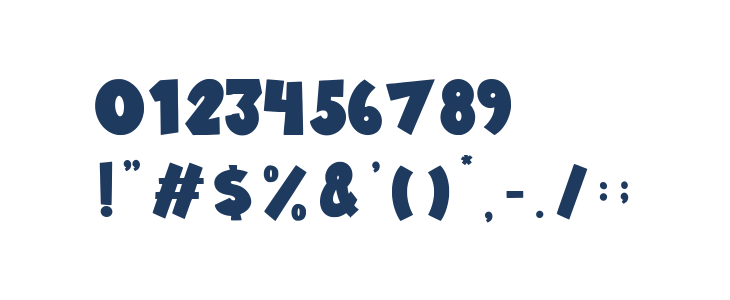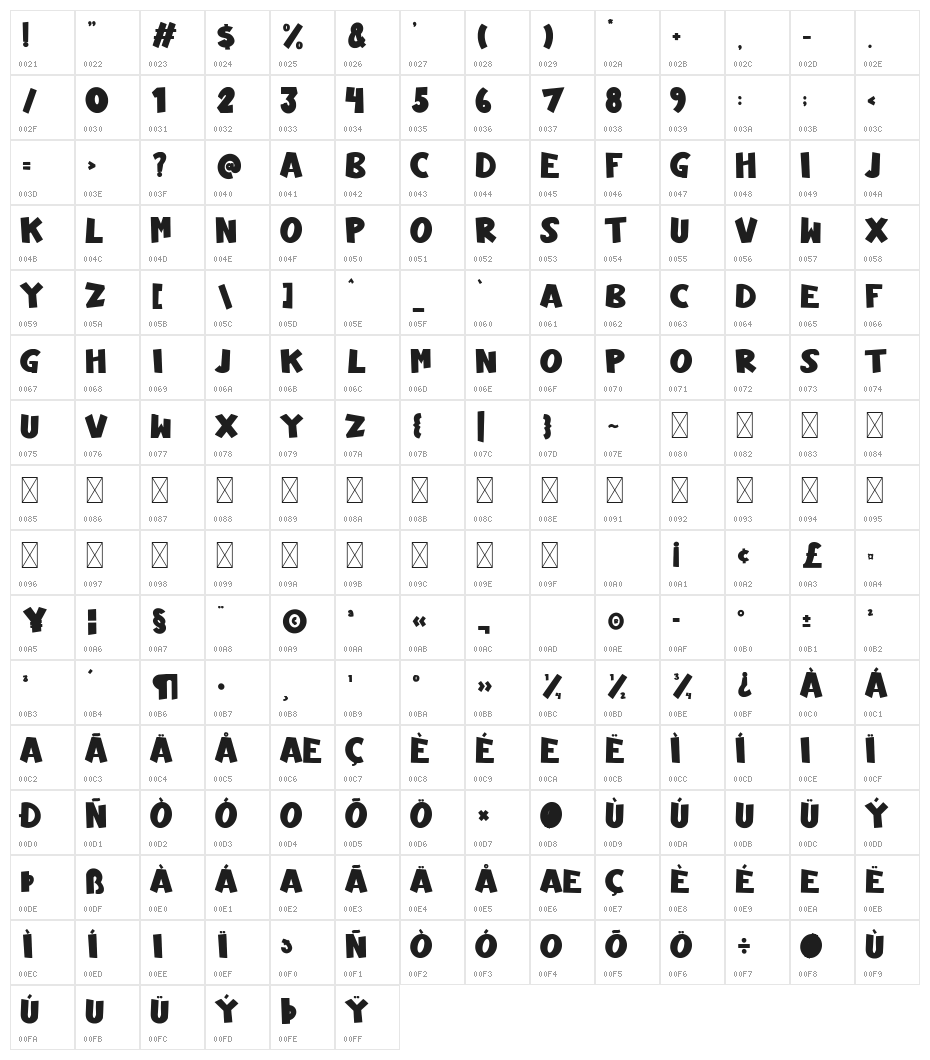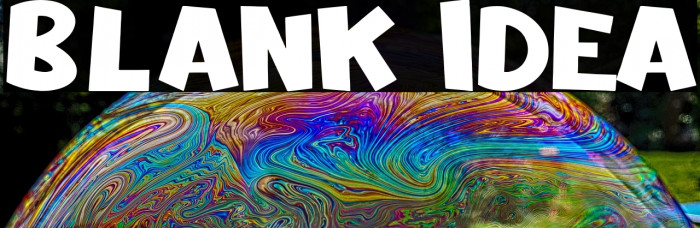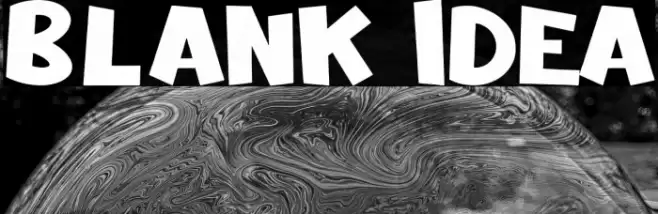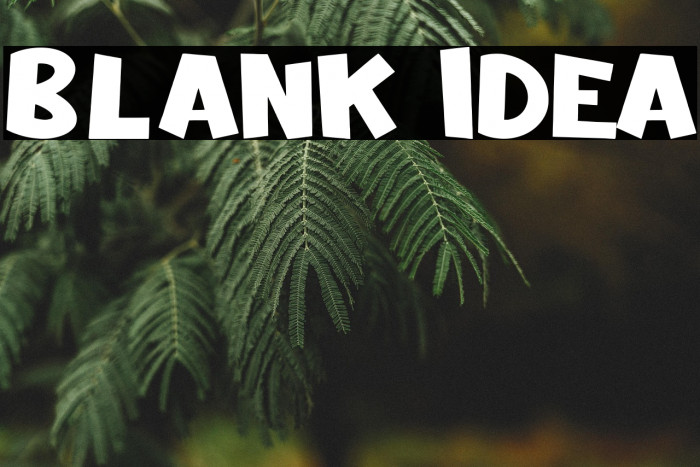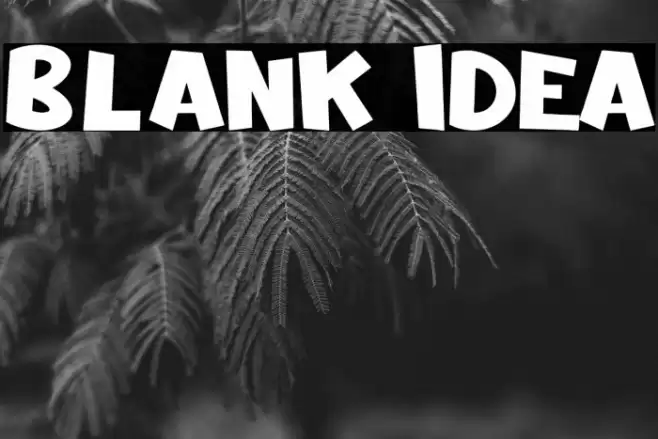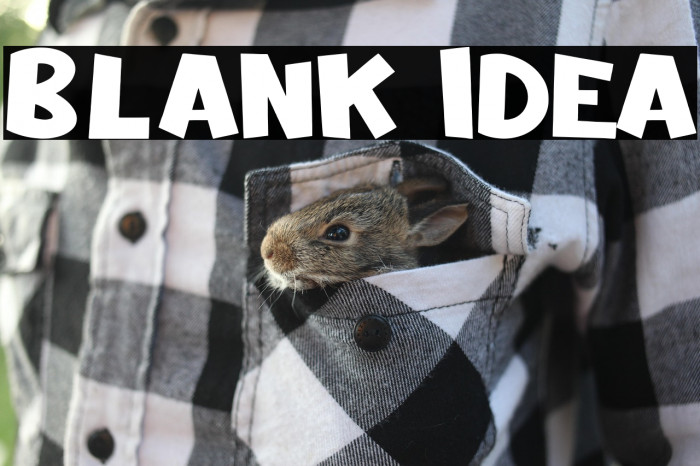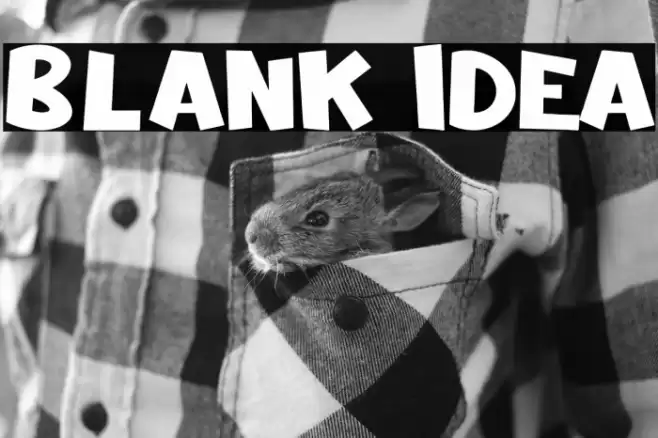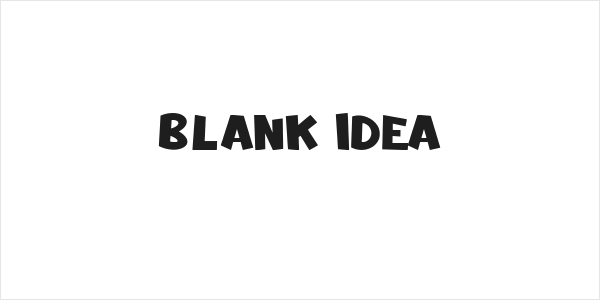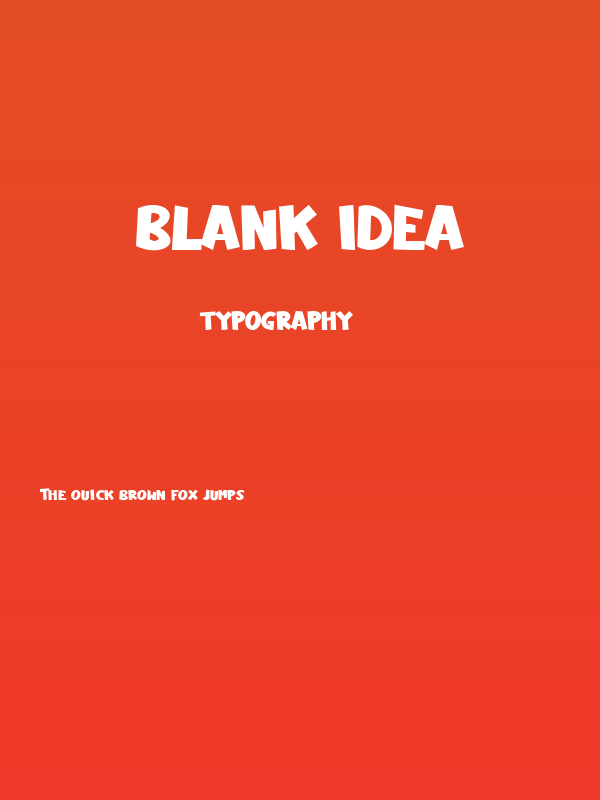
Blank Idea Font
Blank Idea Description
This font features bold, playful characters with a slightly irregular shape, giving it a whimsical and energetic appearance. The letters are thick and rounded, with a cartoonish style that makes them stand out. The uppercase and lowercase letters maintain a consistent weight, contributing to a cohesive look. The numbers and special characters follow the same playful design, ensuring uniformity across all elements. This font's unique style makes it ideal for projects that require a fun and engaging visual impact.
Overall StylePlayful, Cartoonish
Proposed ProjectsIdeal for children's books, comic strips, playful branding, and party invitations.